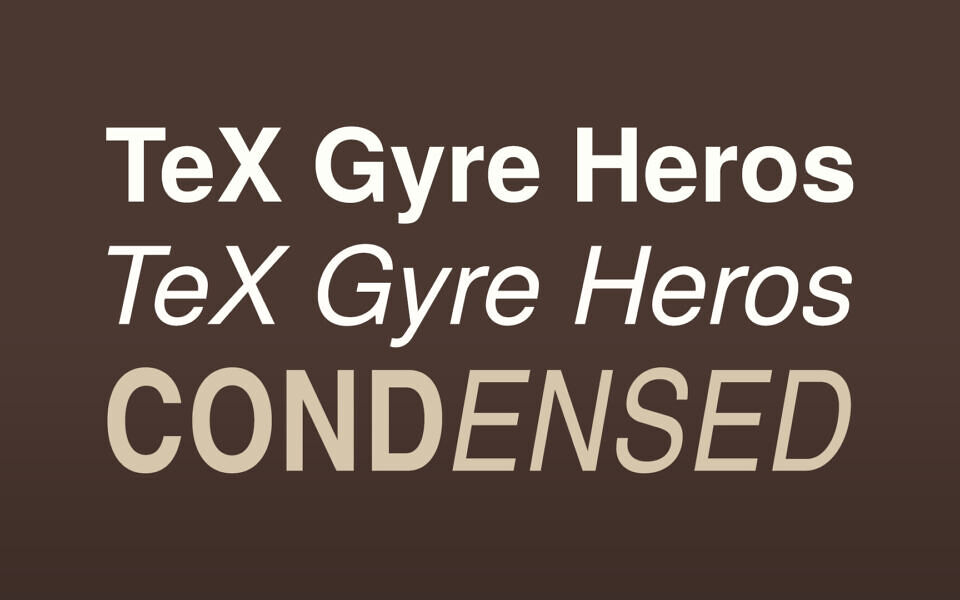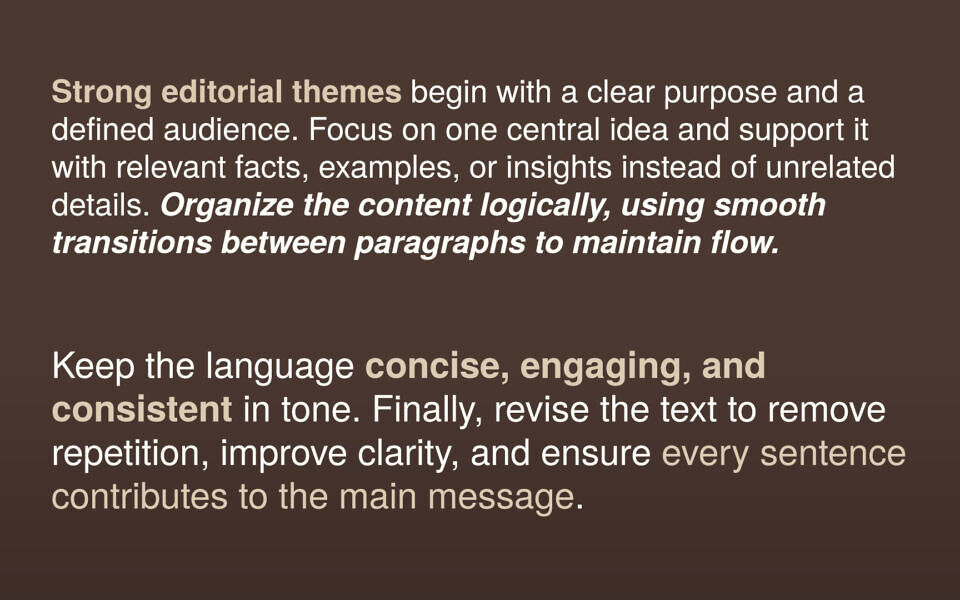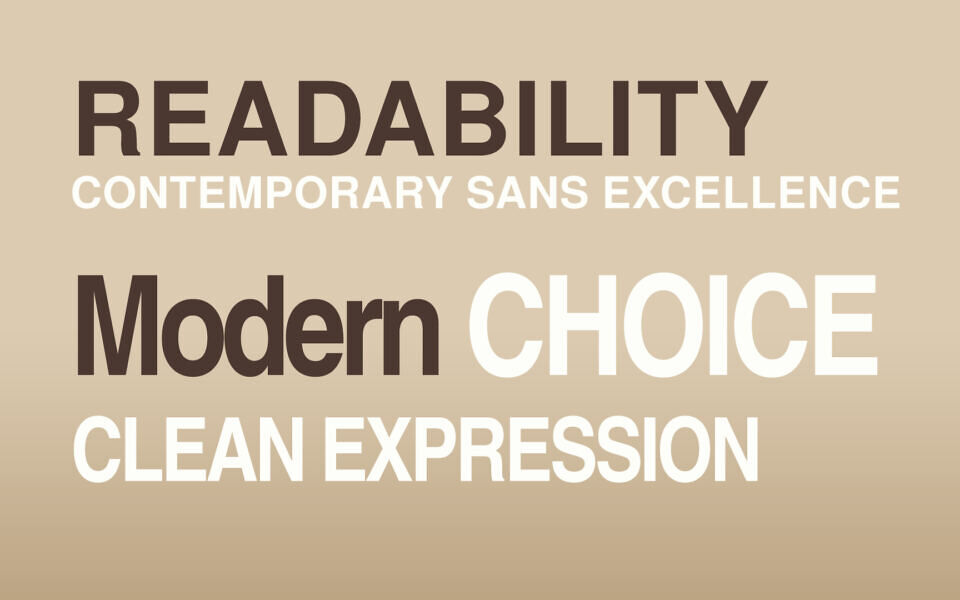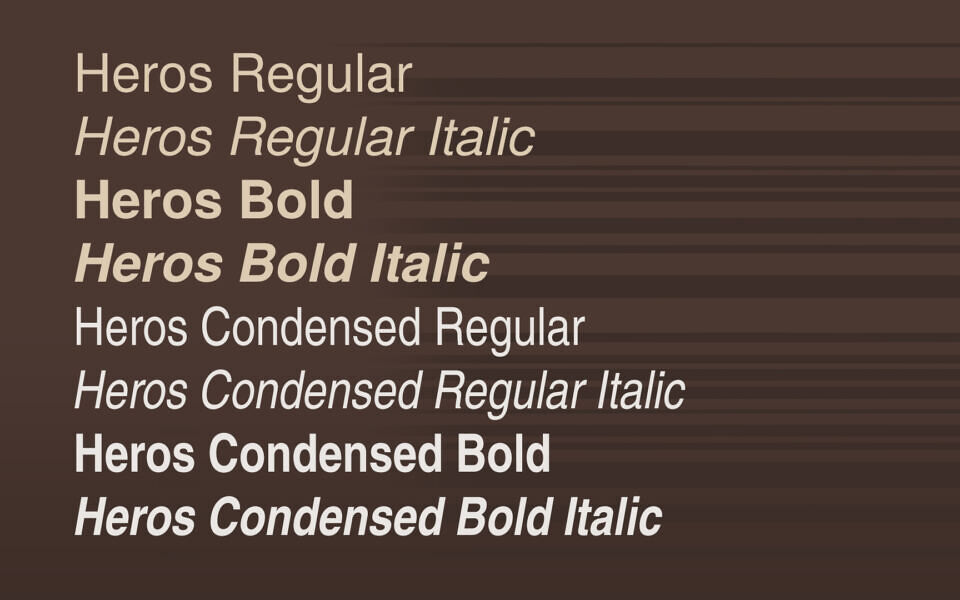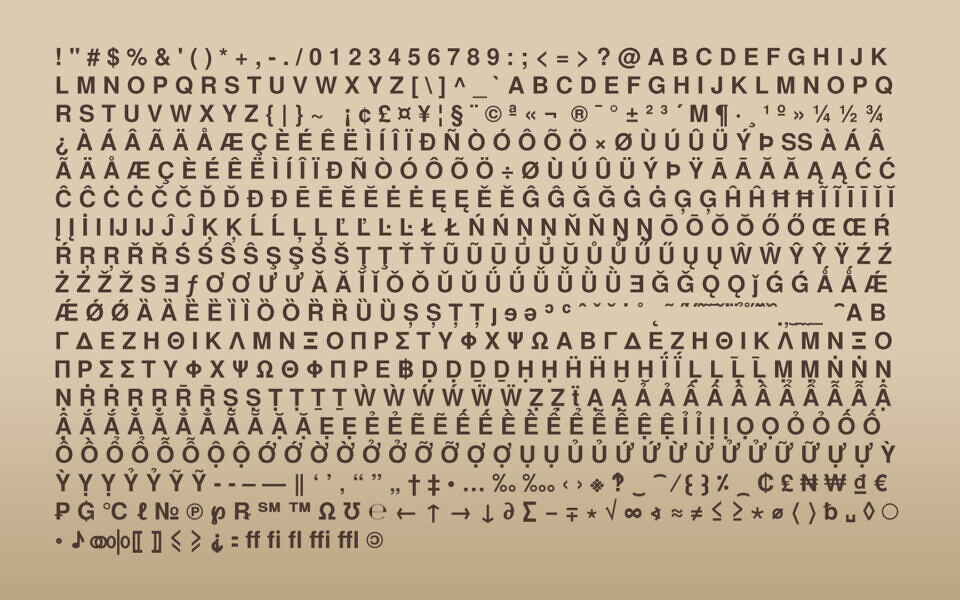
TeX Gyre Heros is a high-quality contemporary sans serif font family. Based on URW Nimbus Sans L, it serves as an excellent, modern replacement for the iconic Helvetica typeface.
Enriched with Vietnamese glyphs by Han Thé Thành, the family includes eight OpenType fonts comprising regular, italic, bold, and bold italic weights, along with their respective condensed counterparts, making it ideal for both text and general typesetting.